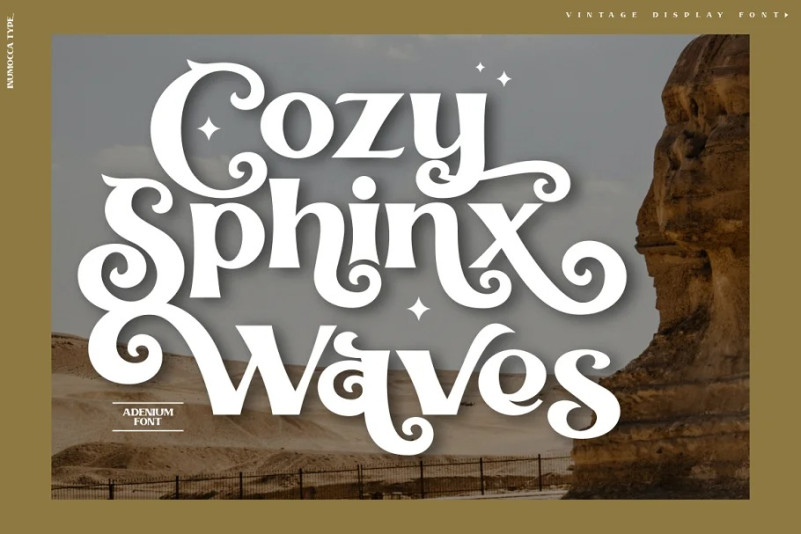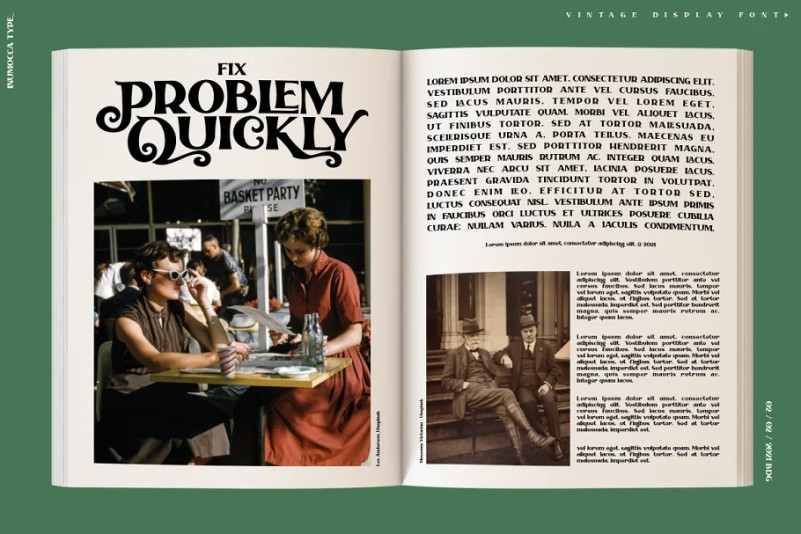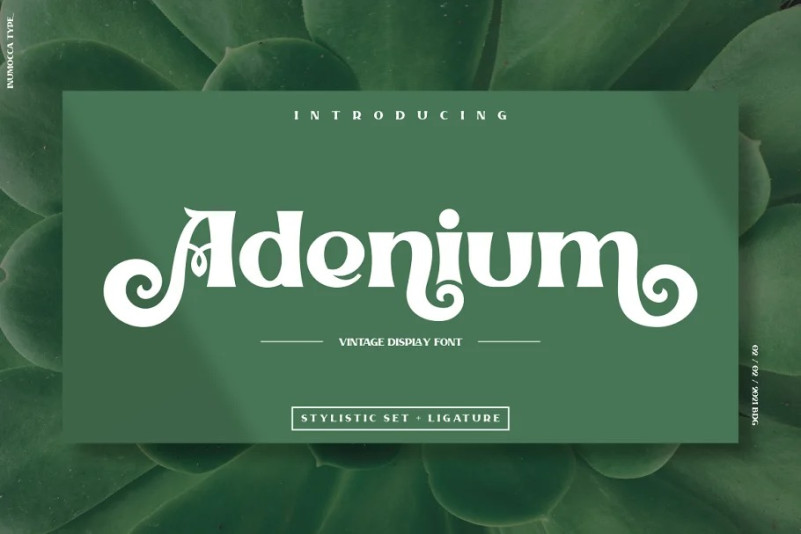
Adenium Font
Adenium Display Font inspired by the Shape of the Adenium Tree, Vintage Display typeface , Classic Taste with some Curly and Curved its Great flexible typeface. unique Stylictic Set and Beautiful Ligature, Really playful typeface to covering your Project, like Lettering, Website Interface, Bookcover or Book Content, Magazine cover, Branding, Poster, wedding invitations, Quotes Lettering, Logos, and more your project design.